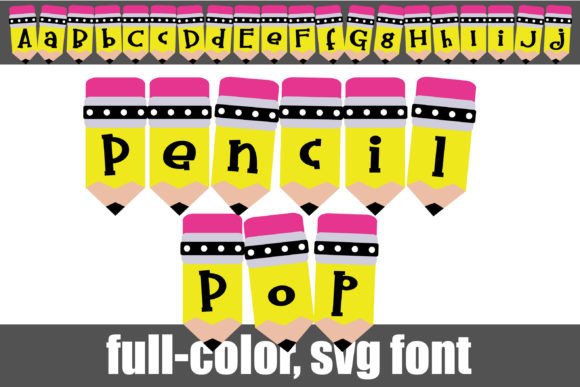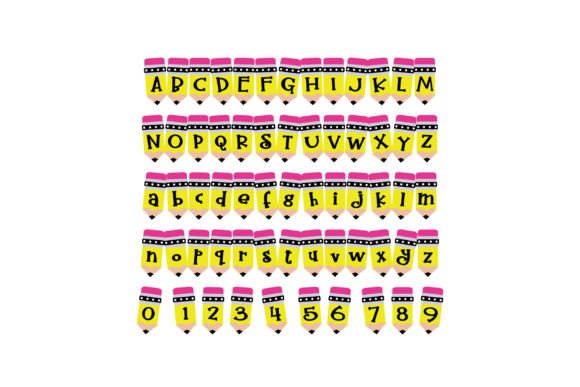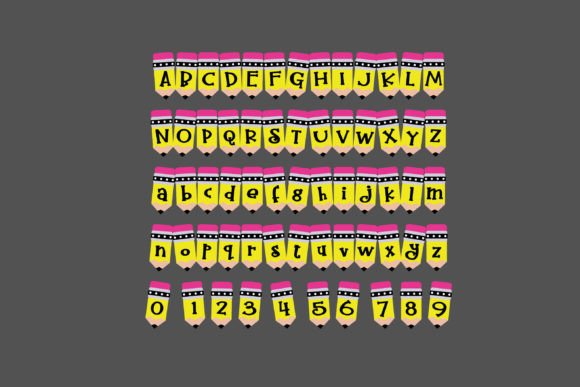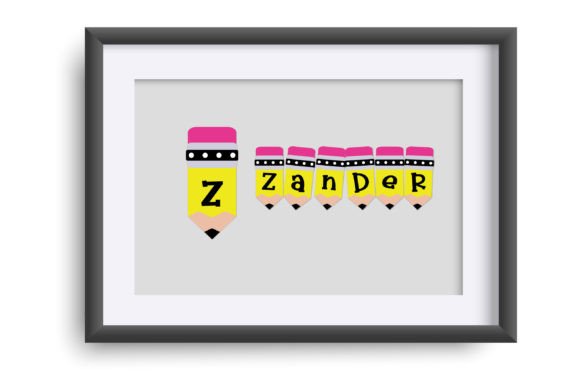
Pencil Pop Font
About the Pencil Pop Font
Introducing the Pencil Pop Font, a beautifully crafted typeface designed to elevate your creative projects. This full-color font features whimsical serif lettering in bright yellow pencils. This font works best for titles, displays, posters and more. Please note color fonts will show as black in non compatible programs. This font type is compatible with Silhouette Studio.